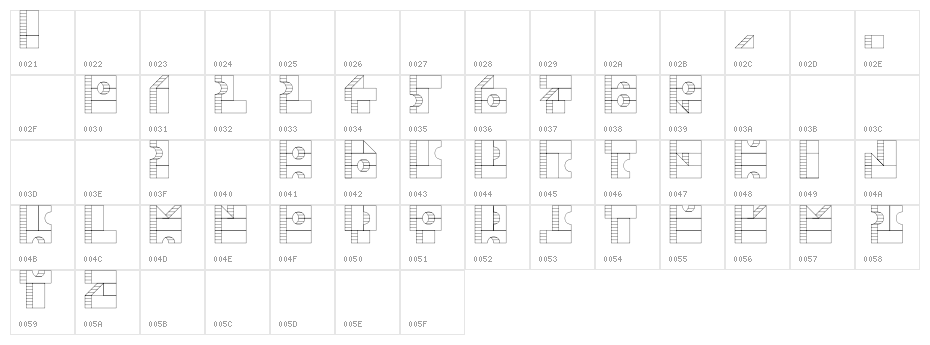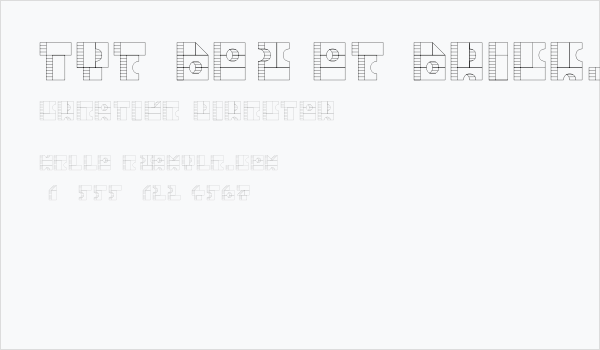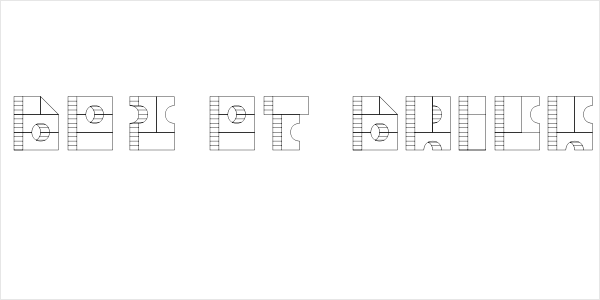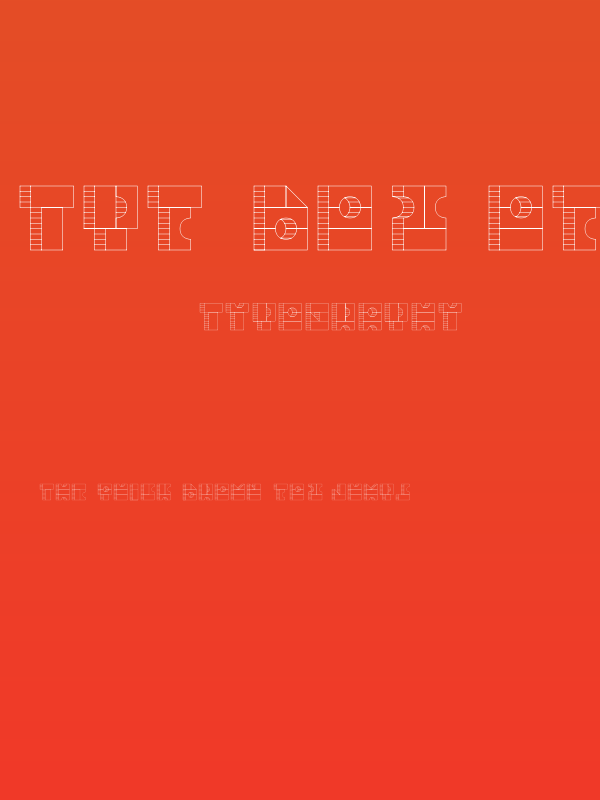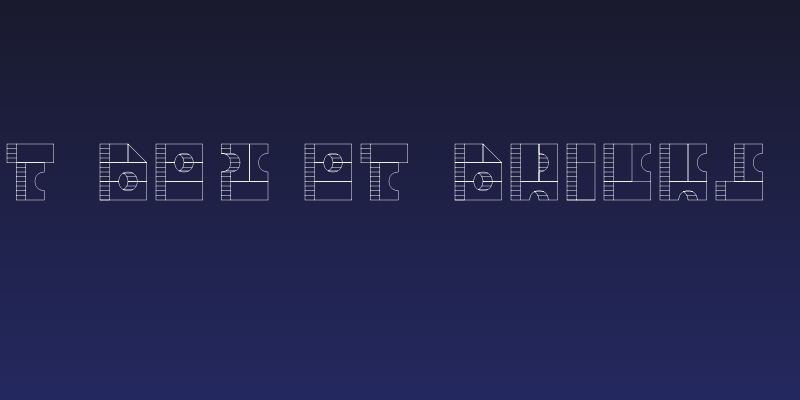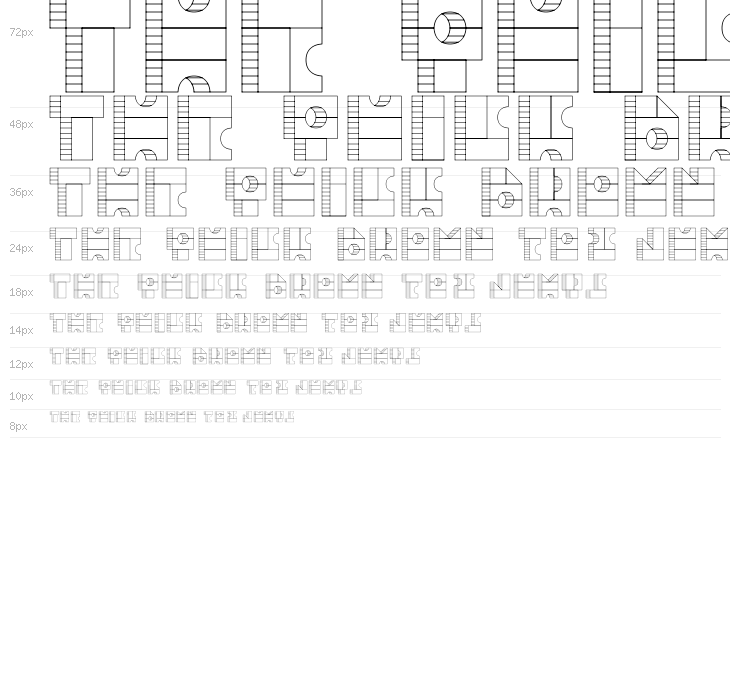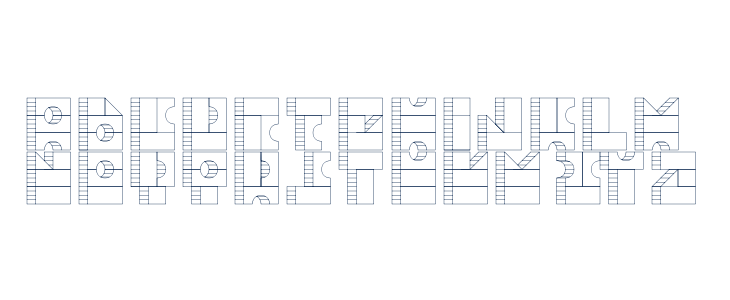
TPF Box of Bricks 1R Font
TPF Box of Bricks 1R Description
This font features a unique, geometric design reminiscent of interlocking bricks or puzzle pieces. Each character is constructed with a combination of straight lines and circular cutouts, creating a playful and structured appearance. The letters and numbers are composed of segments that mimic the look of building blocks, with a consistent use of horizontal lines and circular motifs. This design gives the font a three-dimensional effect, making it stand out as a decorative and eye-catching typeface. The overall aesthetic is modern and industrial, suitable for projects that require a bold and distinctive look.
| Overall Style | Modern, Industrial |
| Proposed Projects | Ideal for architectural branding, children's toys packaging, modern art posters, and creative logos. |